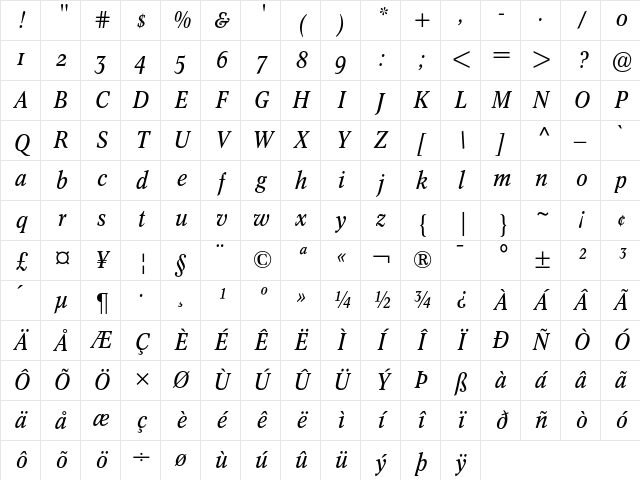
Concorde Nova Italic with Oldstyle Figures
Style: Italic with Oldstyle Figures
Design Context for Concorde Nova
Concorde Nova carries the refined structure of traditional serif typography, with bracketed terminals and considered proportions that communicate credibility and craft. The slanted form adds forward momentum and visual energy.